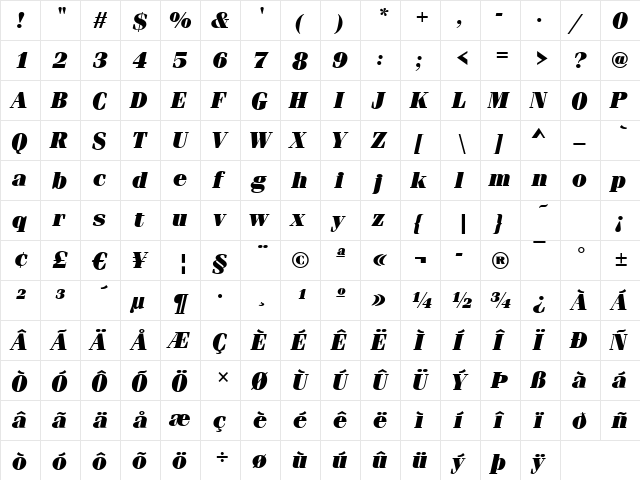
Ferrara-Ultra Italic
Design Context for Ferrara-Ultra Typeface
Ferrara-Ultra is a composed and adaptable typeface that performs quietly and consistently across a wide range of design contexts. The slanted form adds forward momentum and visual energy.
Pro Tip: Use Ferrara-Ultra for emphasis, pull quotes, and subheadings where its slanted energy can add rhythm to the layout.